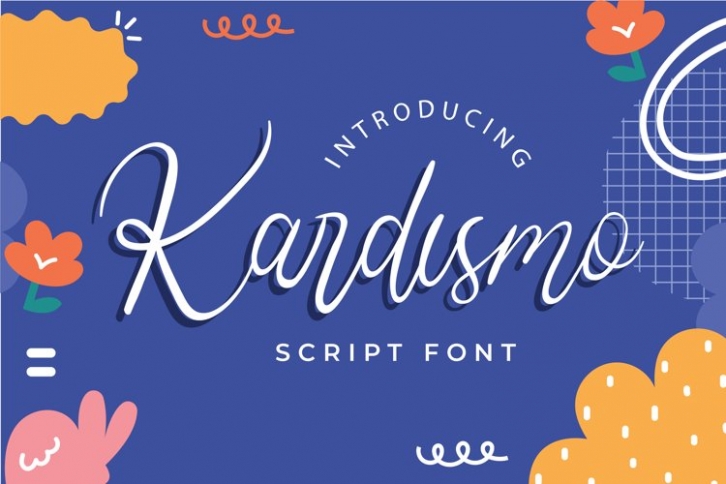
Kardismo is a great font that was designed by plusstore. Imagine the amount of combinations you can create using this font! The archive is 18.45 MB and it was released on December 18, 2021. Kardismo looks beautiful on wedding invitations, greeting cards, logos, posters, labels, t-shirt designs, logos, business cards and is perfect for use in ink or watercolor works, fashion, magazines, packaging and food menus, children's books and more!